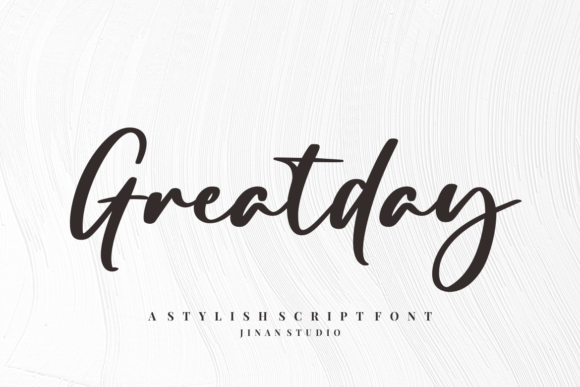
Behold the Greatday Font, an exquisite script font that exudes elegance and sophistication. Created by jinanstd, this modern masterpiece is designed to make your words sing. With its charming curves and flowing lines, Greatday brings a touch of romance to every creation.
Whether you're crafting heartfelt greeting cards, designing eye-catching headlines, or adding a personal touch to your latest project, Greatday is the perfect companion. It's a font that speaks volumes, adding a layer of depth and emotion to your words.
Imagine your designs adorned with Greatday's enchanting characters. Your greeting cards will become cherished keepsakes, your headlines will demand attention, and your projects will radiate a unique charm that sets them apart.
Greatday is not just a font; it's an experience. It's a font that ignites your creativity and empowers you to express yourself in ways you never thought possible. With its Cricut compatibility, Greatday opens up a world of possibilities for your crafting endeavors.
So, embrace the beauty of Greatday Font today. Let its graceful strokes and captivating curves elevate your designs to new heights. Immerse yourself in the world of typography and discover the endless possibilities that await.
Unlock the Greatday Font and let your words dance with elegance. Experience the joy of creating designs that resonate with your audience, leaving them spellbound and inspired. Greatday is more than just a font; it's an invitation to embark on a creative journey like no other.